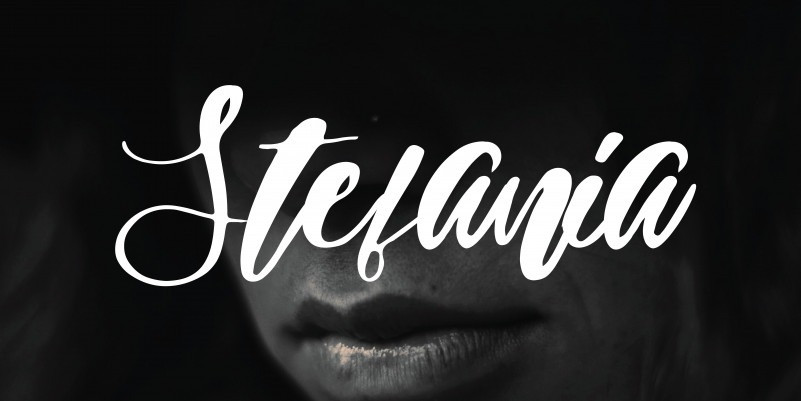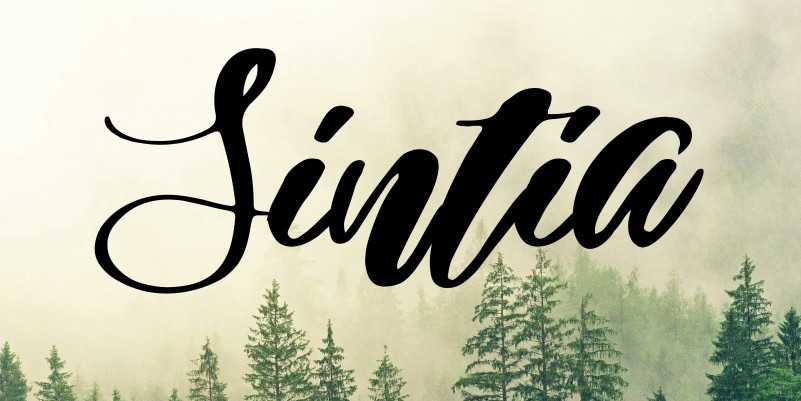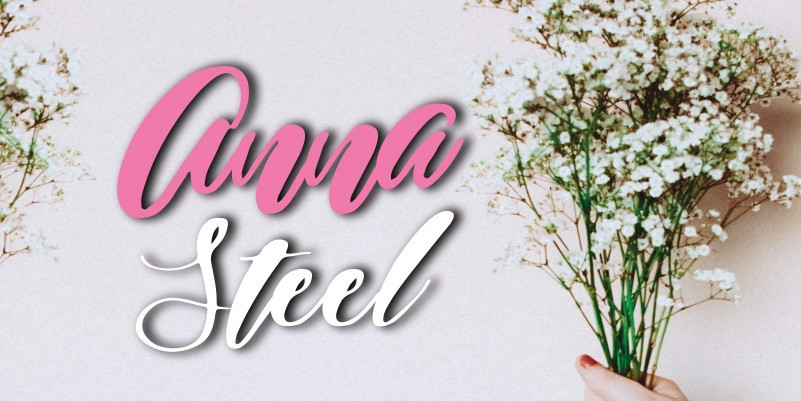
Annasteel – Bold Script Font is a modern bold script font. This fonts also looks very sweet with simple style. It’s the stylish vintage look font. Come with ligatures, stylistic alternate, stylistic set and end swash to make your own design look perfect. So beautiful on invitation like greeting cards, branding materials, business cards, quotes, posters, and more!